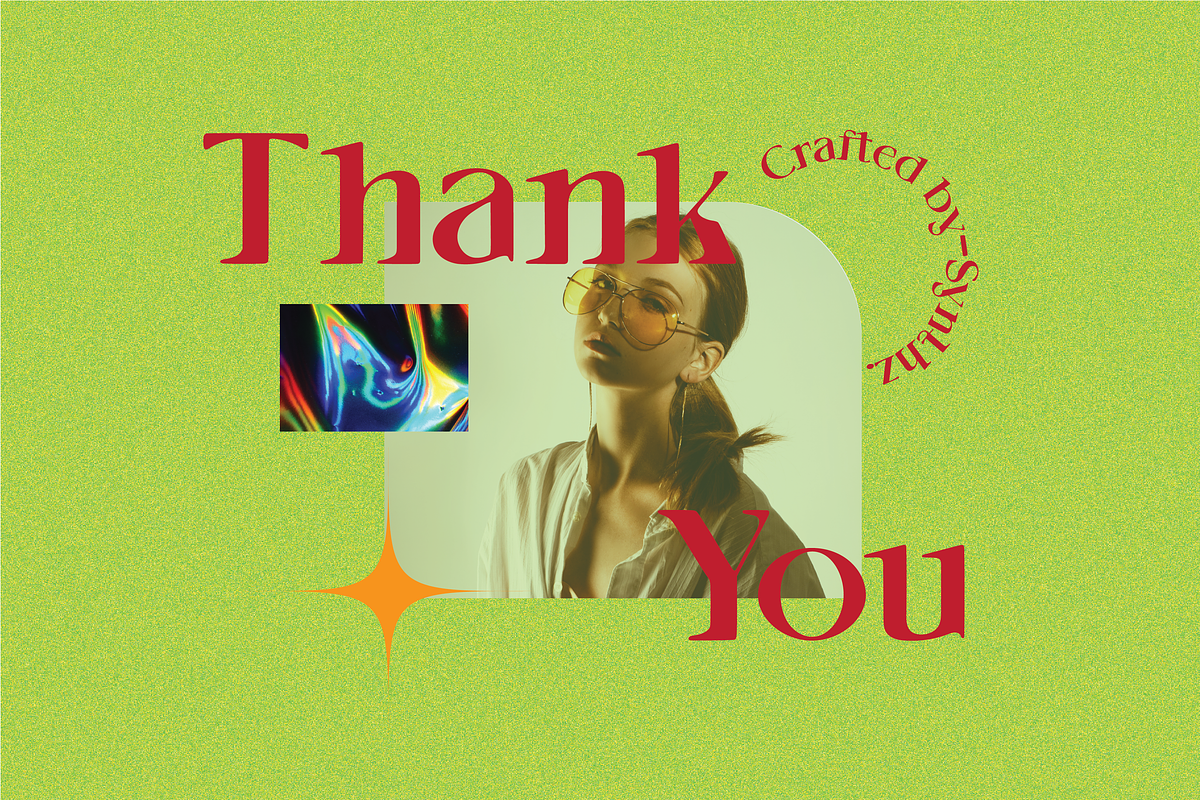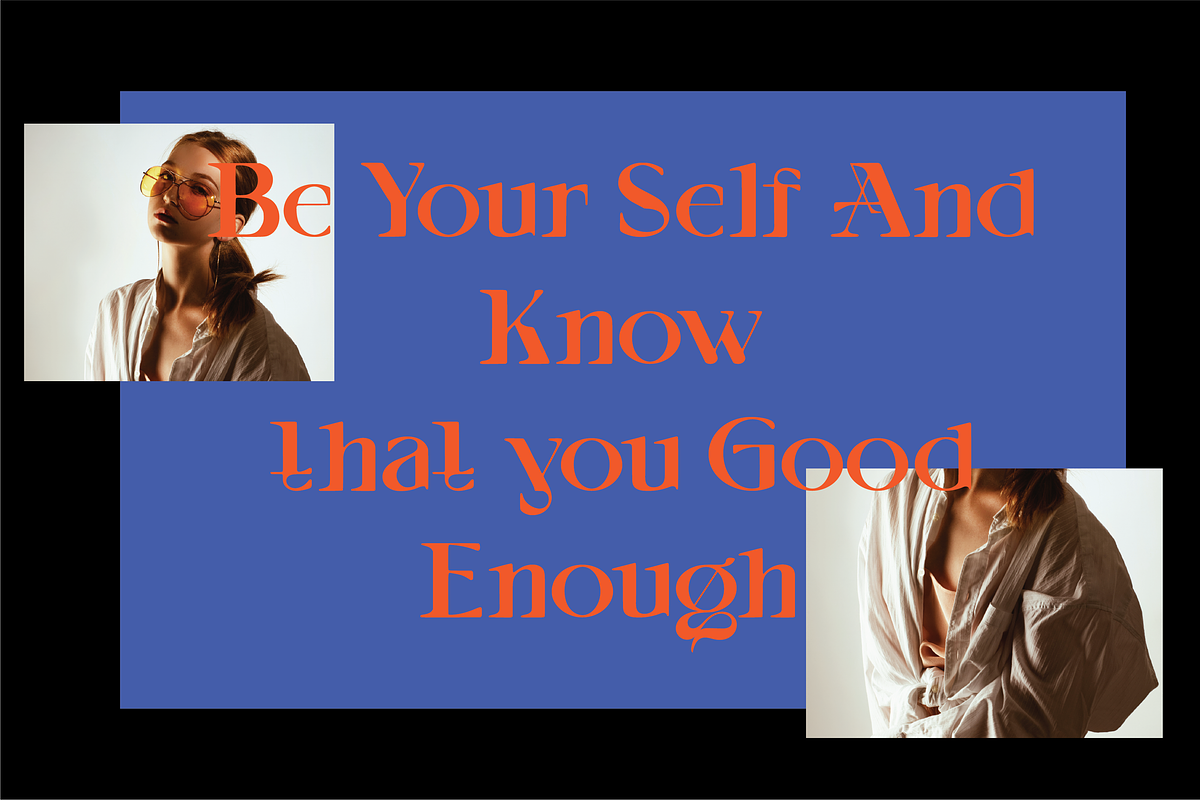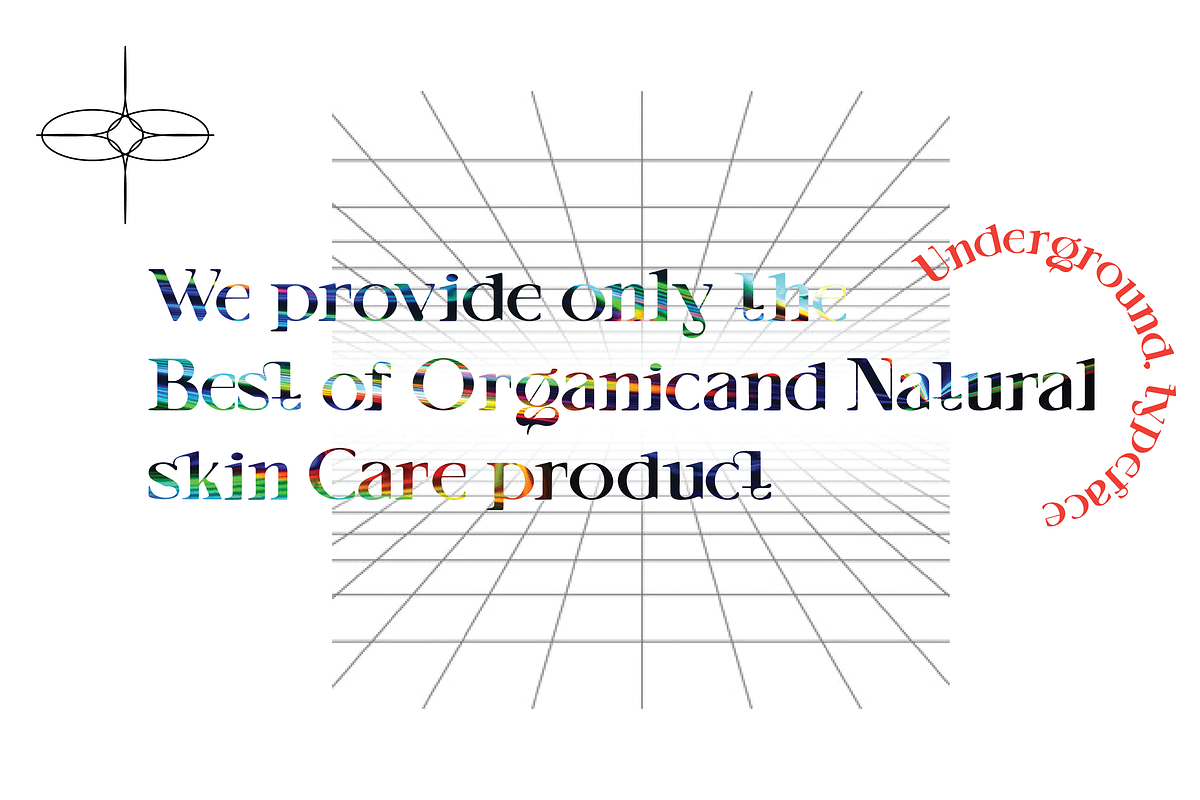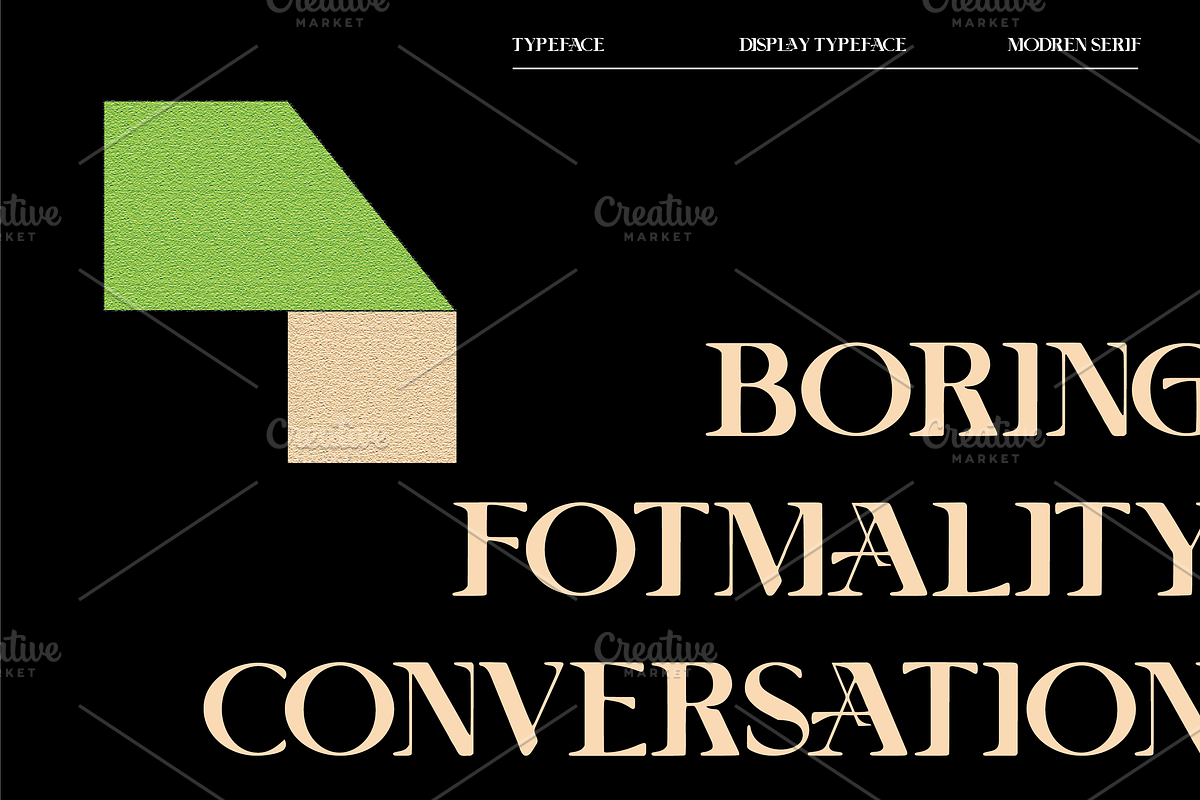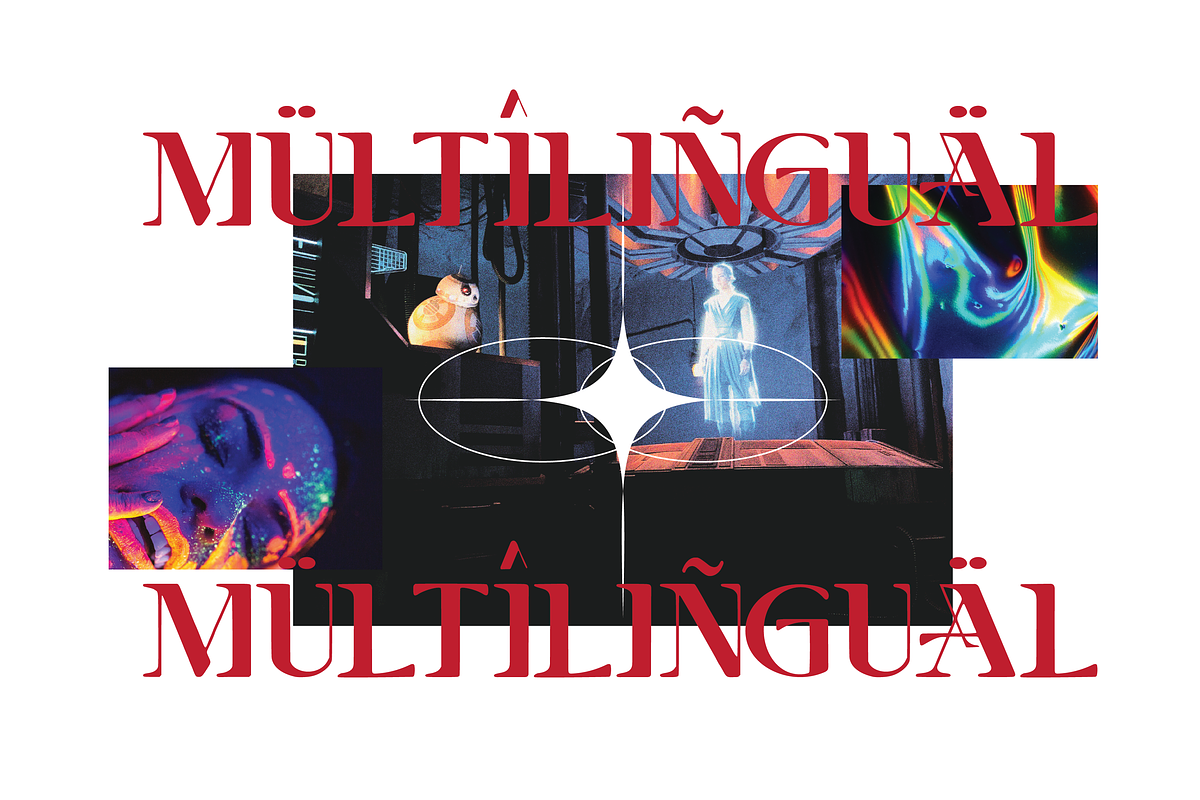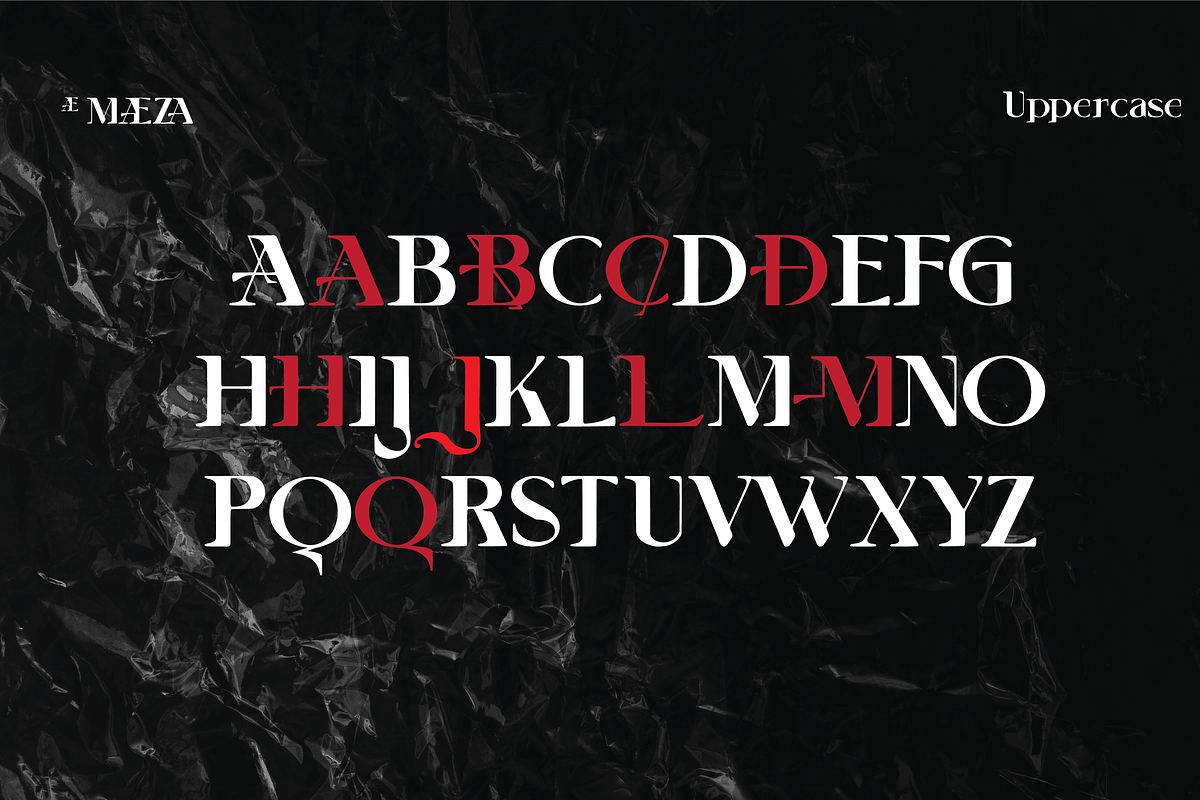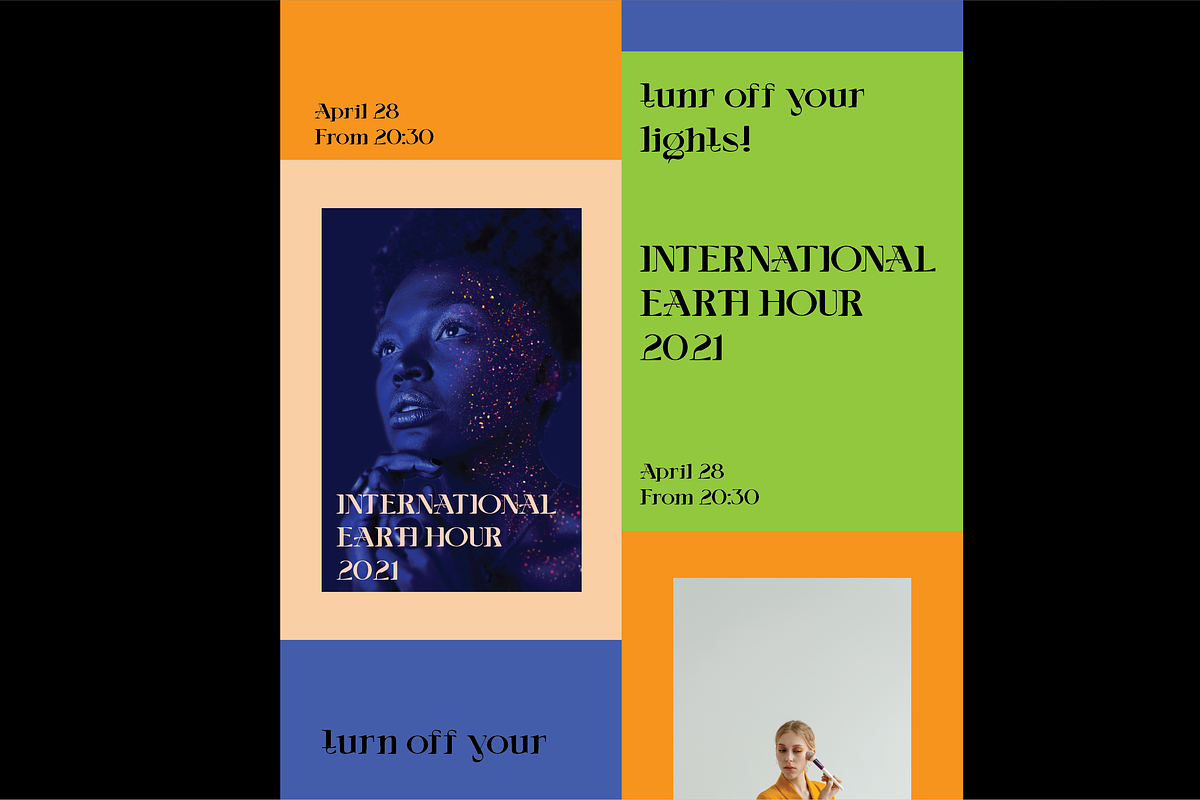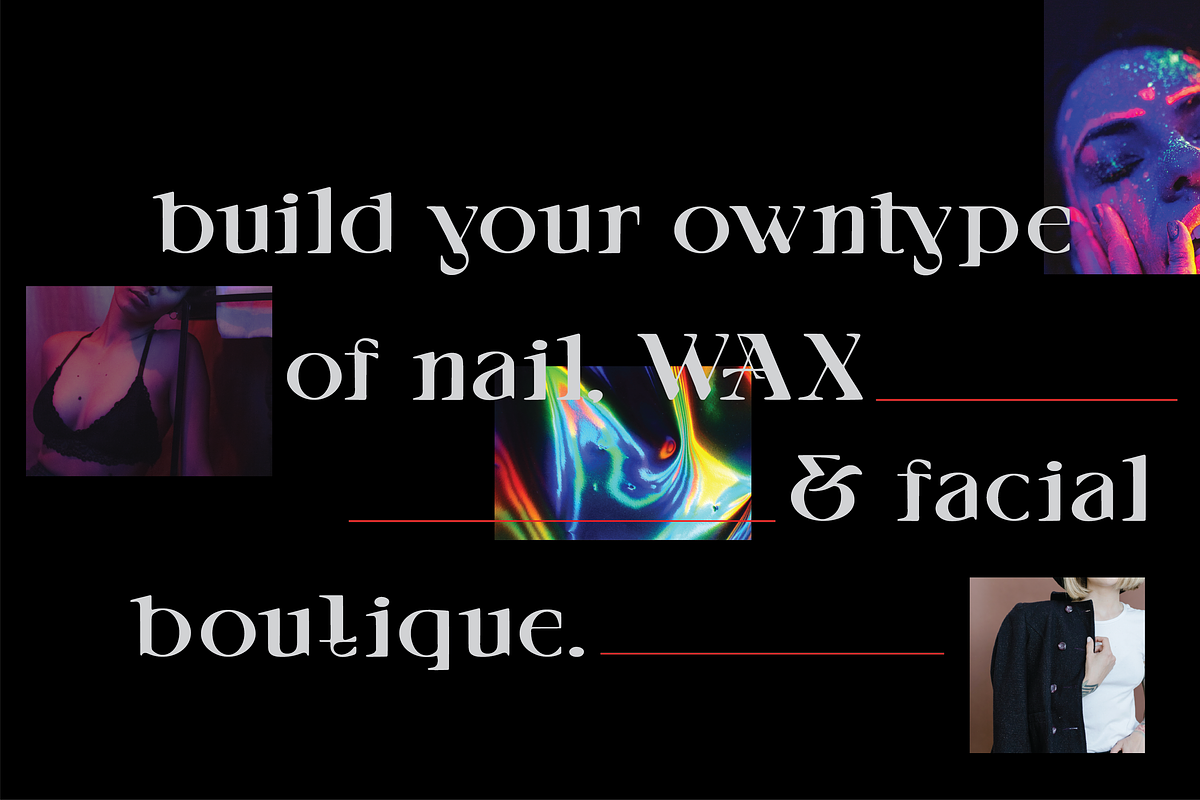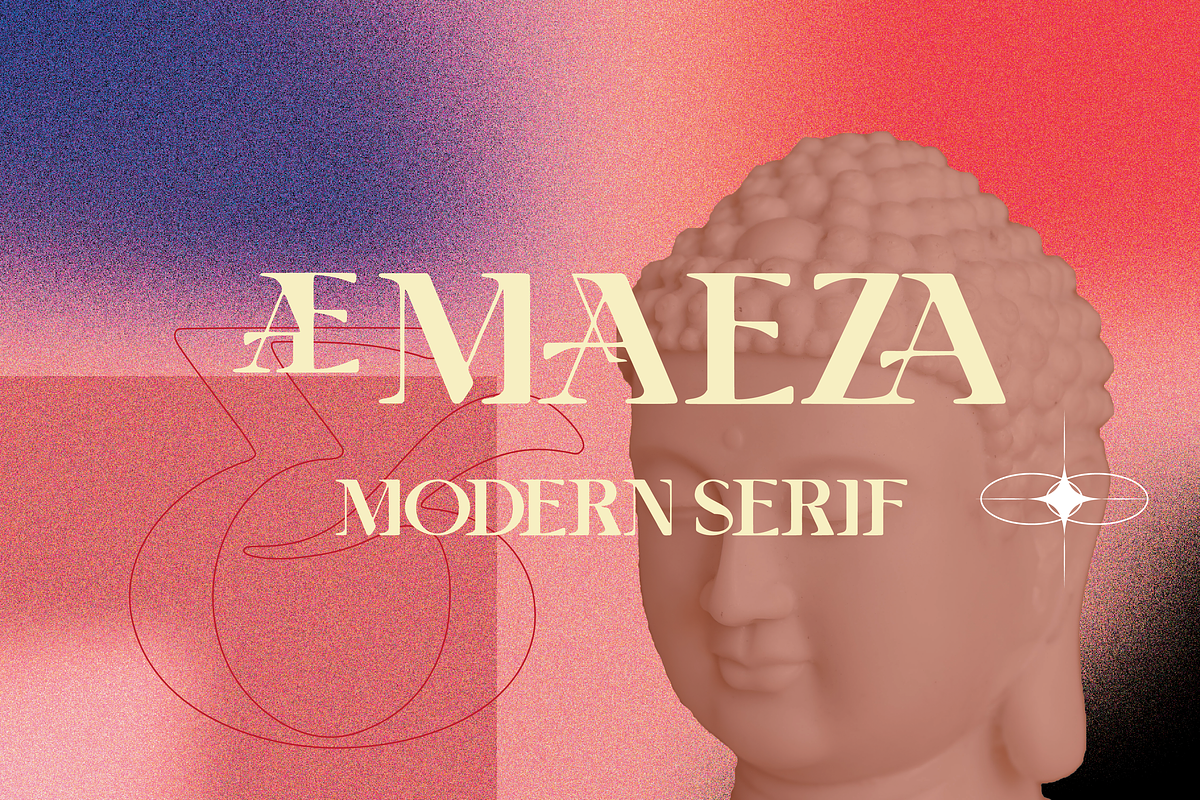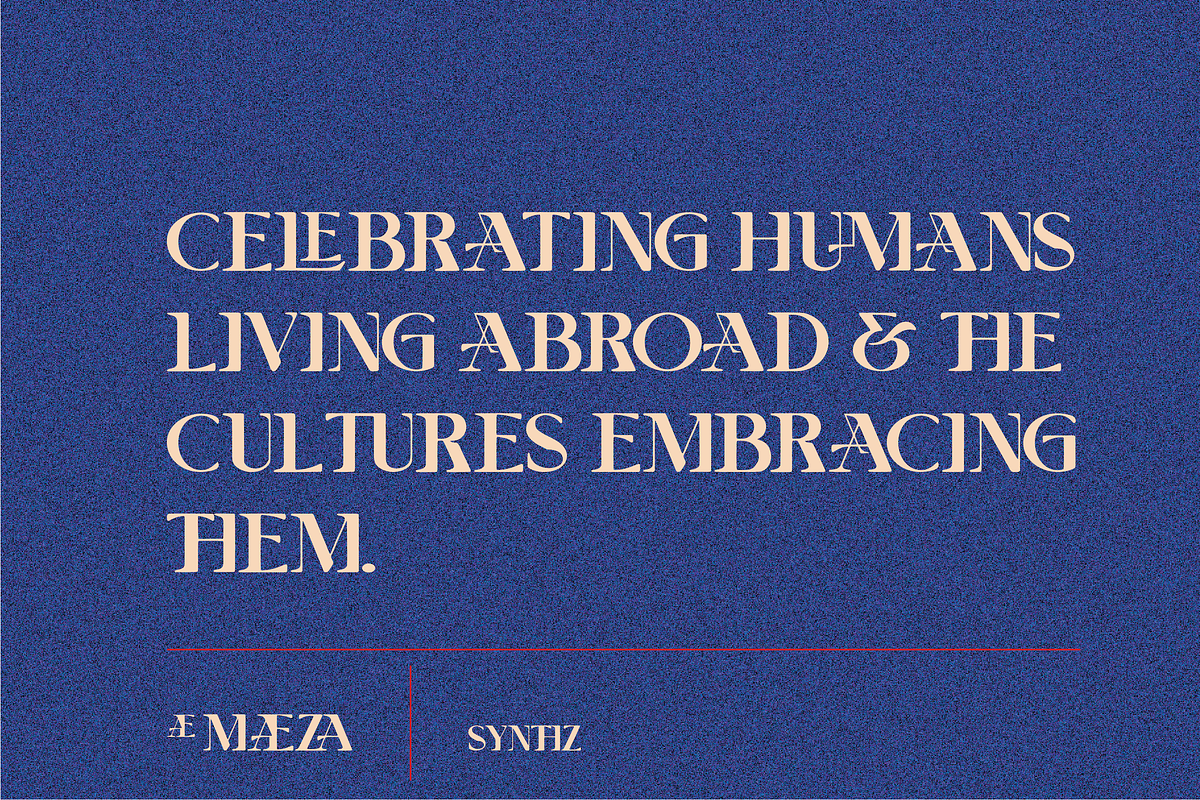
AE Maeza-Modern Serif
AE Maeza is a chic and fashionable serif font that seems to impress with every letter. Fall in love with its stylish looks, and use them to create stunning designs!